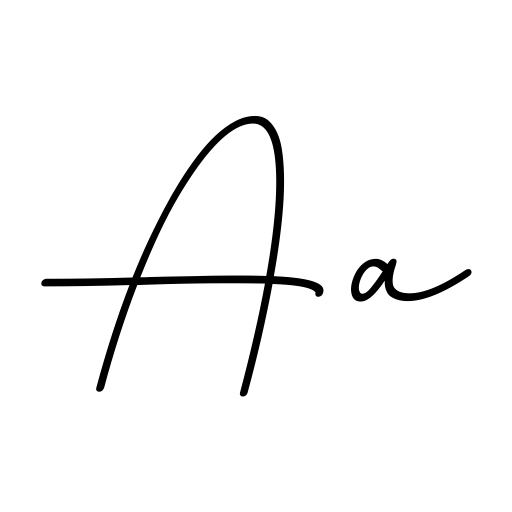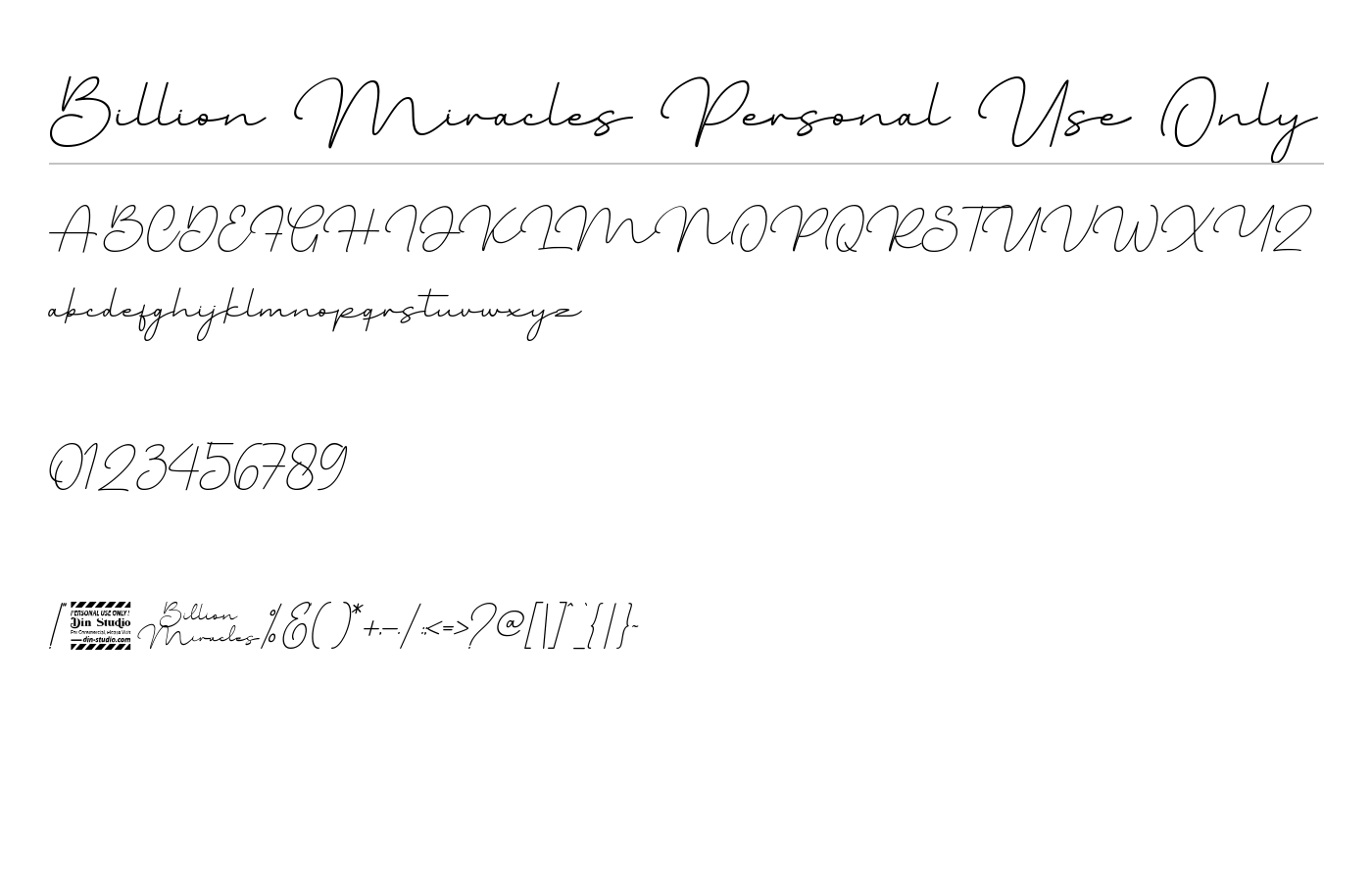
Billion Miracles is a delicate, handwritten script font featuring slender, elegant strokes that convey a personal and intimate feel. Its thin, flowing letterforms with gentle curves work beautifully for projects seeking a refined yet casual touch, making it ideal for invitations, branding, and creative headlines that aim to evoke warmth and individuality. This font shines in designs where a soft, feminine elegance and handwritten charm are desired.
Billion Miracles Personal Use Font
About Billion Miracles Personal Use Font
| Font family | Billion Miracles Personal Use Font |